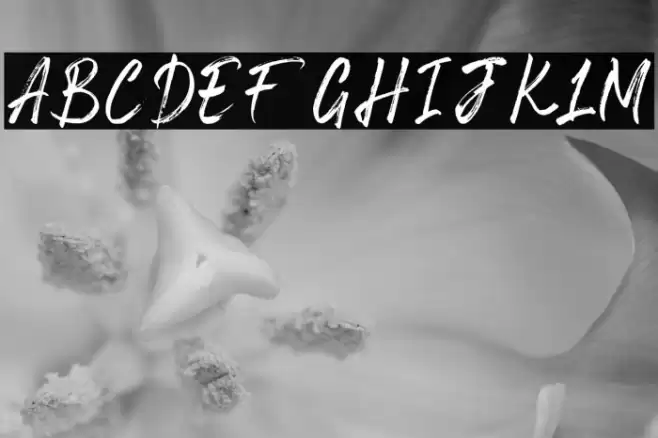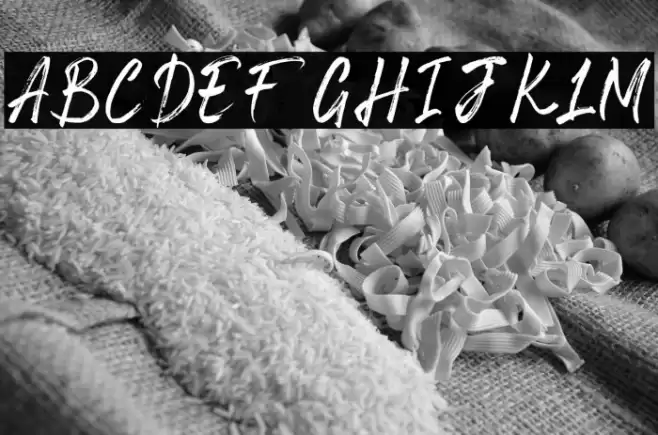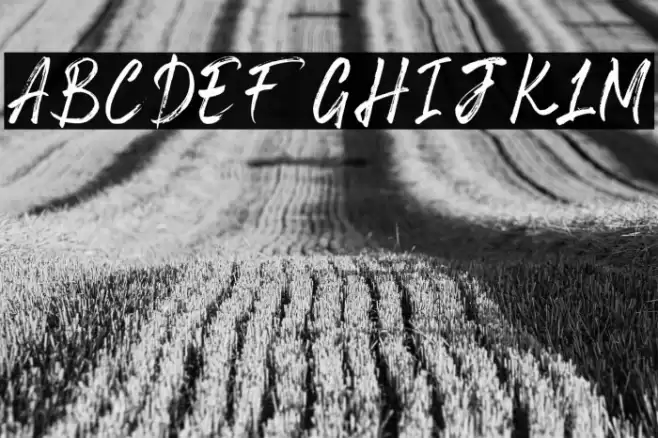
Space Outside Font
Space Outside Description
This font features a dynamic and expressive brush script style, characterized by its bold and energetic strokes. The letters have a hand-painted appearance, with varying thickness and a slightly rough texture that adds a sense of movement and spontaneity. The uppercase and lowercase letters flow seamlessly, creating a cohesive and artistic look. The numbers and special characters maintain the same lively and textured quality, making them suitable for creative and eye-catching designs. Overall, this font exudes a modern and artistic vibe, perfect for projects that require a personal and handcrafted touch.
A bold, brush script font with dynamic, textured strokes from Uncategorized fonts.
- Font: Space Outside
- Proposed Projects: Ideal for branding, posters, invitations, and artistic projects requiring a personal touch.
- Overall Style: Modern, Artistic